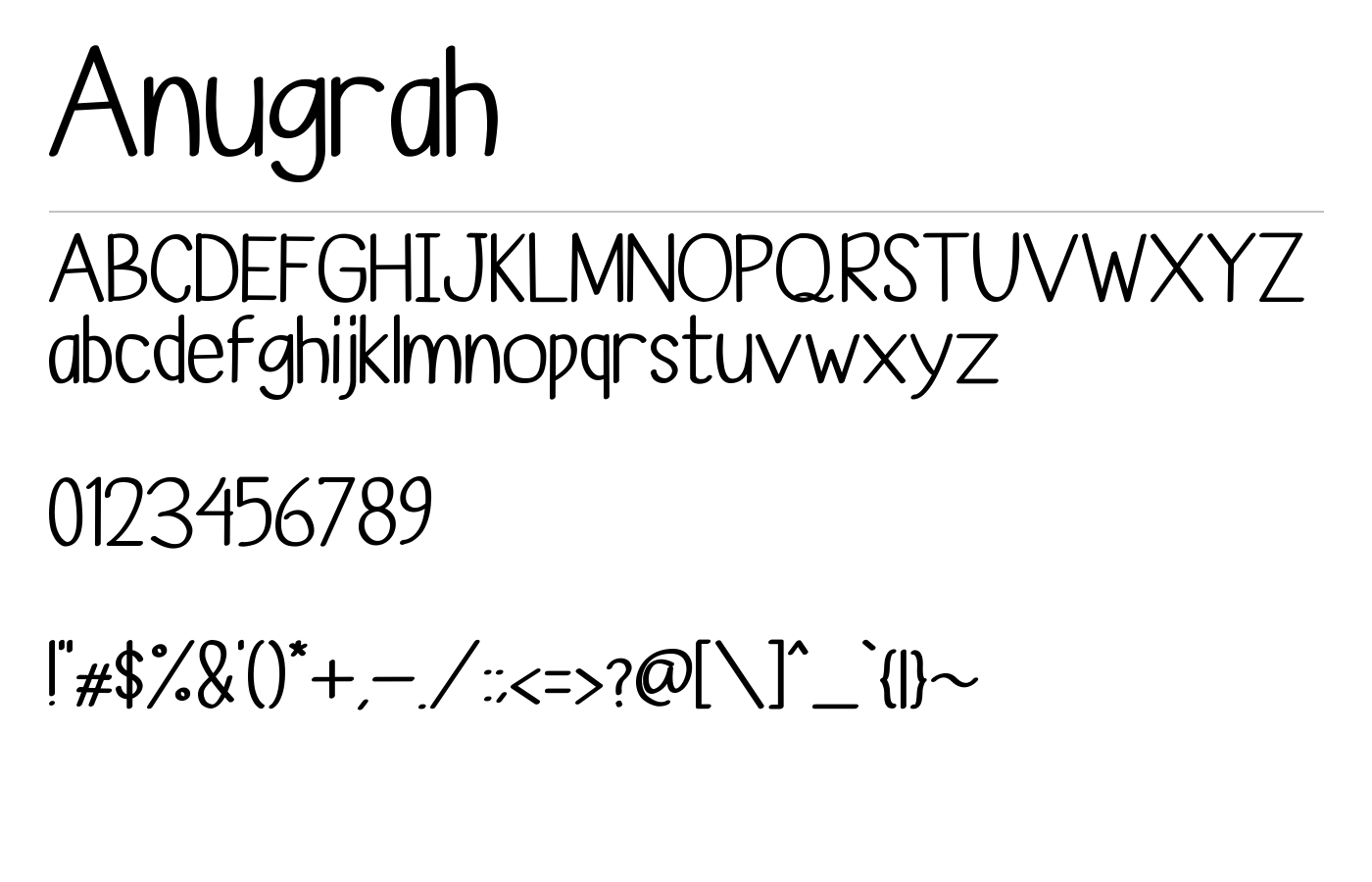
Anugrah is a playful and casual sans serif font with a hand-drawn feel, featuring clean, slightly irregular strokes that give it a friendly and approachable personality. Its tall, narrow letterforms with light weight and consistent stroke width make it ideal for informal headings, children's content, and creative projects that benefit from a warm, human touch. This font works well in both display and short text settings where readability meets a fun, personal style.
Anugrah Font
About Anugrah Font